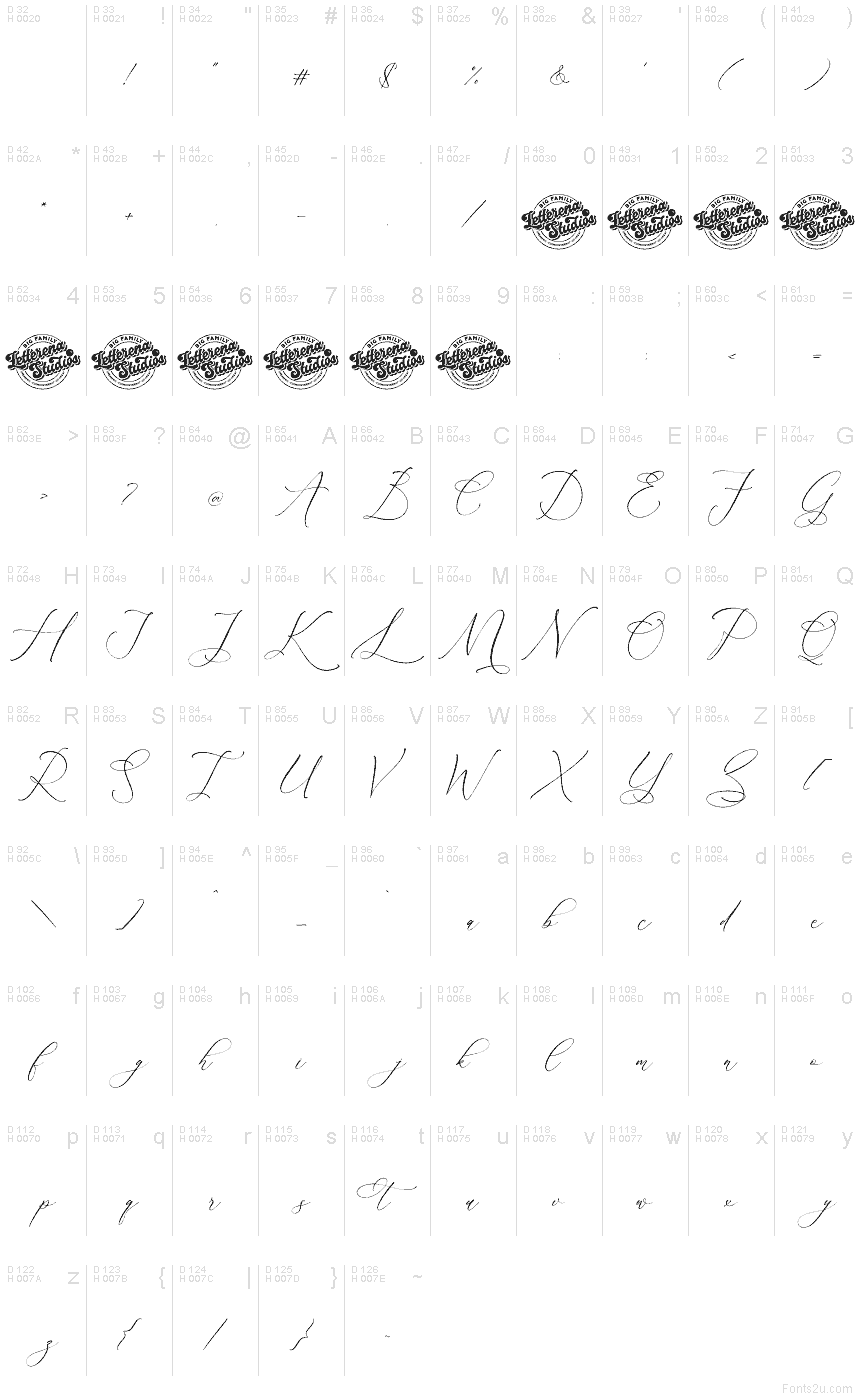
Creattons Balleryna DEMO
Creattons Balleryna font by Storytype Studio is an elegant and flowing light calligraphy font. Ornate and decorative with sophisticated forms, it carries a beautiful vintage-inspired look. The long elegant lines follow the entire composition for a formal and unique result printed as well as digital.